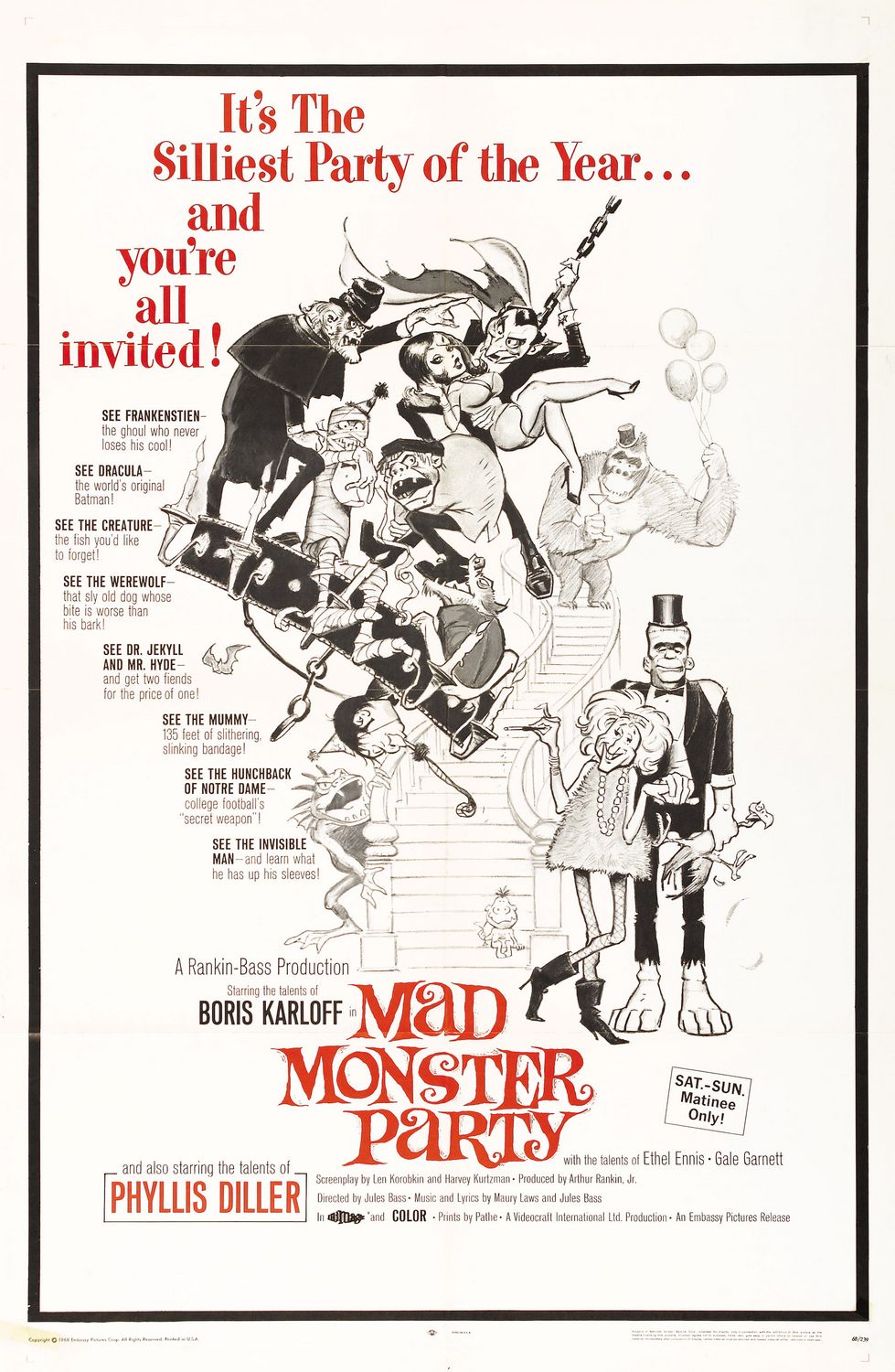
Mad Monster Party Font
AnimationMad Monster Party is a 1967 American stop-motion animated musical comedy film produced by Rankin/Bass Productions. It features a screenplay written by Len Korobkin and original music by Maury Laws and Jules Bass.
Based on the film title ''Mad Monster Party,'' type designer Phil Bracco created a font called Monster Fiesta which is an unusual and entertaining serif typeface.